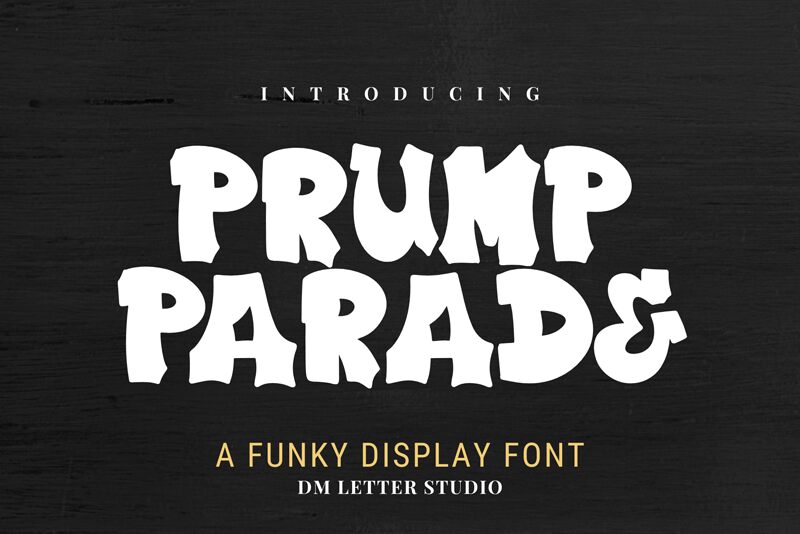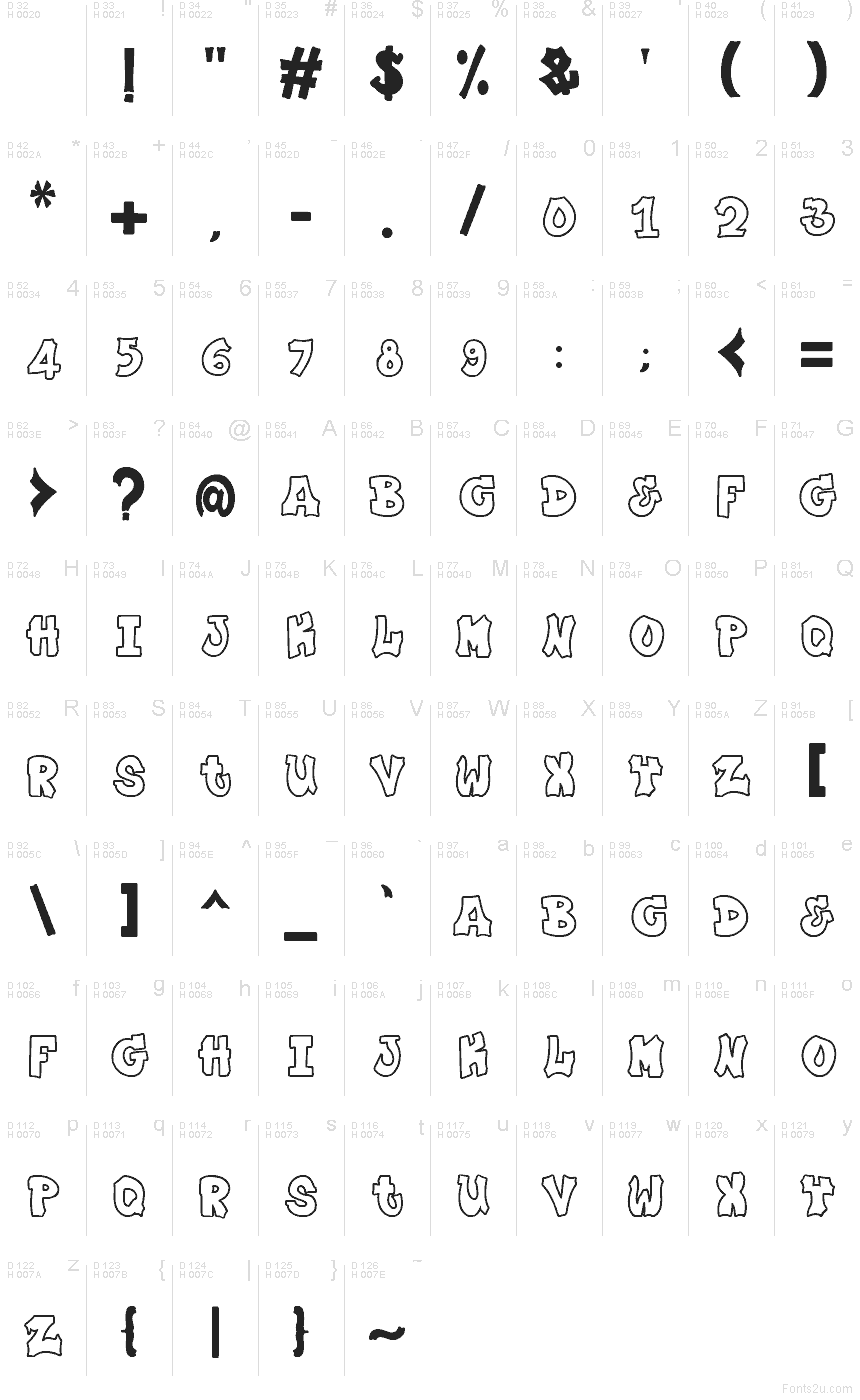
Plump Outline
Plump Outline font by DM Letter Studio - Dimas Prasetyo is a free groovy outlined display typeface in the Plump family, with letters that look like they’ve been puffed up and traced in inky black. Each character wobbles slightly, with soft, swollen curves and playful irregular edges that feel hand-drawn and a little mischievous. The hollow interiors invite color, gradients, or textures, turning every word into a chunky sticker or candy wrapper headline.
Using Plump Outline, titles instantly grab attention on posters, party invitations, kids’ event flyers, playful branding, merch, and social media graphics. This free font works beautifully when set large, where its bubbly shapes and thick outlines can really breathe. Try pairing Plump Outline with a clean geometric sans for body copy to keep things readable while letting the groovy letters do the shouting.